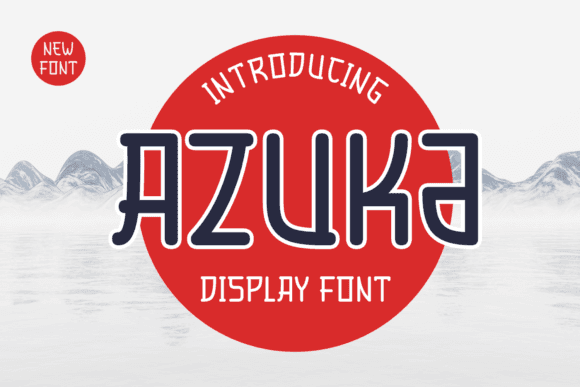
Azuka Font for Cricut, Silhouette and Printable Designs
Azuka is a modern digital font optimized for cutting machines like Cricut and Silhouette, as well as printable craft projects. Designed with clarity and style in mind, Azuka delivers crisp letterforms that make your DIY creations look clean, bold, and professional. Additionally, Azuka seamlessly integrates with various design software, allowing for effortless customization and personalization of your projects. Whether you're creating labels, greeting cards, or home decor, this font elevates your crafting experience to new heights. For those seeking an alternative, the banda aceh font for crafting also offers a unique style that complements a wide range of designs. In addition to its versatility, Azuka is perfect for exploring baby font ideas for crafts, allowing crafters to create adorable and themed projects for baby showers or nursery decor. With a variety of weights and styles, this font can help you design anything from playful labels to charming wall art that captures the joy of new beginnings. Embrace your creativity and watch as Azuka transforms your crafting projects into memorable keepsakes.
This font excels in vinyl cutting, labeling, and personalized design—perfect for makers, hobbyists, and small business crafters seeking reliable font performance and striking aesthetics.
- Vinyl decals and wall art
- Custom T-shirts and tote bags
- Personalized mugs and tumblers
- Printable signs, quotes, and templates
- Labels, stickers, and scrapbooking elements
- Great for cutting, layering, and printing
- Clean letter structure for precision work
- Ideal balance of style and readability
Q: Can Azuka be used for layered vinyl designs?
A: Yes. Its bold structure and spacing make it ideal for layered and multi-color vinyl projects.
| Feature | Azuka | Craft Font A | Craft Font B |
| Design Style | Bold modern sans-serif | Handwritten script | Rounded playful font |
| Ease of Cutting | High - smooth edges, clear spacing | Medium - script details | High - bold and simple forms |